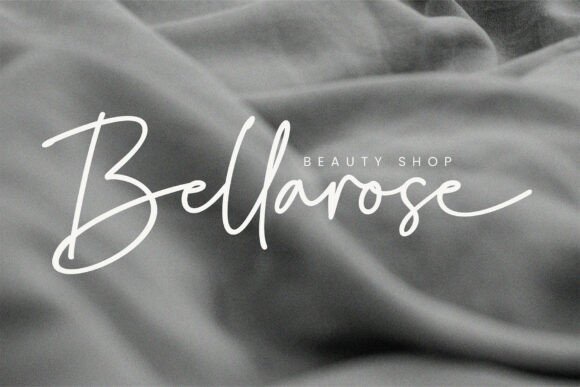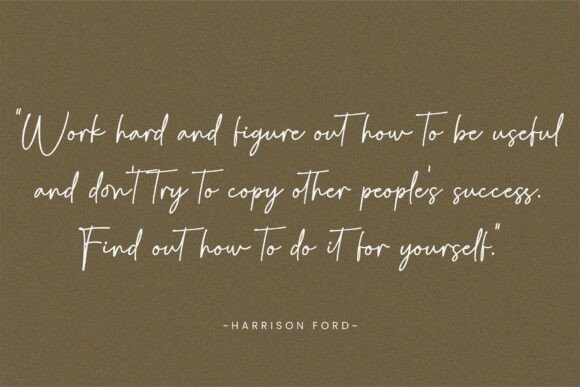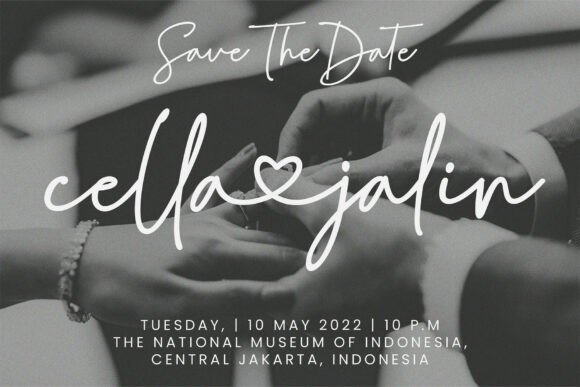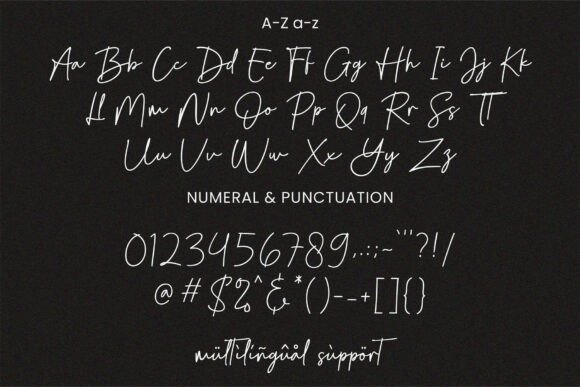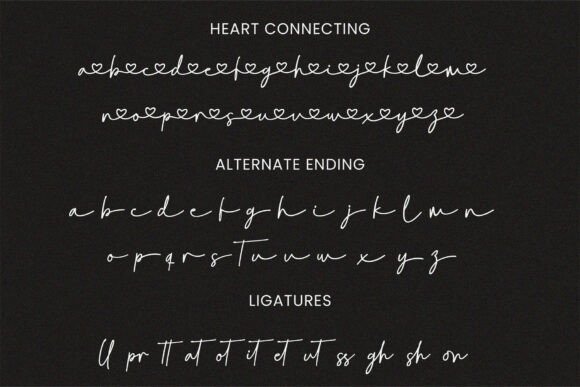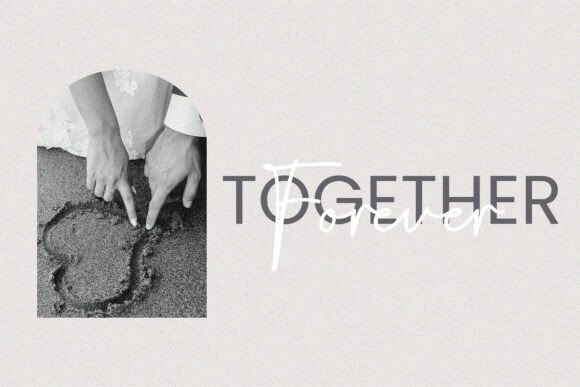
Dandelions Font: Elevate Your Designs with a Refined and Elegant Monoline Script
Are you a designer or crafter looking for a font that can add a touch of elegance and sophistication to your projects? Look no further than Dandelions Font, a beautiful monoline script font that brings a handmade feel to your designs. With its flowing strokes and balanced curves, Dandelions is perfect for a wide range of applications, from logos and wedding invitations to social media graphics and packaging.
The Characteristics of Dandelions Font
Dandelions Font is a refined and elegant monoline script font that is designed to bring a friendly and stylish touch to any design. Its key characteristics include:
- Monoline script: Dandelions Font features a monoline script style, which means that the font has a consistent line width throughout. This gives the font a clean and elegant look that is perfect for designs that require a high level of sophistication.
- Handmade feel: Despite its elegant appearance, Dandelions Font has a handmade feel that sets it apart from more traditional fonts. This makes it perfect for designs that require a personal touch.
- Flowing strokes: The font features flowing strokes that are designed to give your designs a sense of movement and fluidity.
- Balanced curves: The curves in Dandelions Font are carefully balanced to create a sense of harmony and elegance.
Uses for Dandelions Font
Dandelions Font is a versatile font that can be used for a wide range of applications, including:
- Logos: The elegant and sophisticated appearance of Dandelions Font makes it perfect for logos that require a high level of professionalism.
- Wedding invitations: The font’s handmade feel and flowing strokes make it perfect for wedding invitations and other formal event materials.
- Social media: Dandelions Font can be used to create eye-catching social media graphics that are sure to stand out.
- Packaging: The font’s elegant appearance makes it perfect for packaging designs that require a high level of sophistication.
- Creative branding projects: Dandelions Font can be used to create a wide range of branding materials, from business cards to letterheads.
Why Choose Dandelions Font?
So why should you choose Dandelions Font for your next design project? Here are just a few reasons:
- Unique and elegant: Dandelions Font has a unique and elegant appearance that sets it apart from more traditional fonts.
- Handmade feel: The font’s handmade feel adds a personal touch to your designs that is sure to resonate with your audience.
- Versatile: Dandelions Font can be used for a wide range of applications, from logos and wedding invitations to social media graphics and packaging.
- Easy to read: Despite its elegant appearance, Dandelions Font is easy to read, making it perfect for designs that require a high level of legibility.
Tips for Using Dandelions Font
Here are a few tips for using Dandelions Font in your designs:
- Use it sparingly: Because of its elegant appearance, Dandelions Font is best used sparingly. Use it for headings or titles, and pair it with a simpler font for body text.
- Experiment with colors: Dandelions Font looks great in a wide range of colors, from bold and bright to soft and pastel.
- Pair it with images: The font’s handmade feel makes it perfect for pairing with images and illustrations.
In conclusion, Dandelions Font is a beautiful and elegant monoline script font that is perfect for designers and crafters looking to add a touch of sophistication to their projects. With its flowing strokes, balanced curves, and handmade feel, Dandelions Font is sure to bring a friendly and stylish touch to any design.